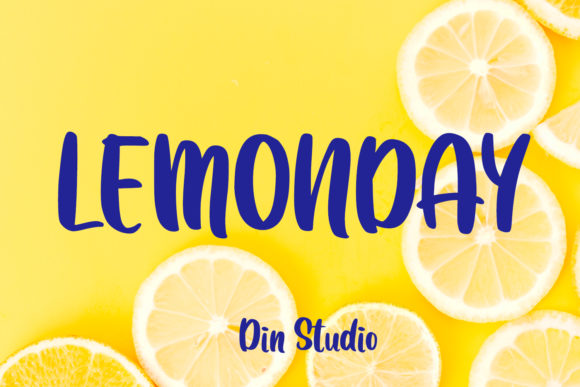
Lemonday Font
Behold Lemonday, a zesty and refreshing script font that will tantalize your designs with its captivating charm. This vibrant creation from Din Studio is a masterpiece of digital artistry, meticulously crafted to infuse your projects with an irresistible aura of joy and playfulness.
Step into a world where your words dance with delight, adorned in the whimsical strokes of Lemonday. Each letter is a vibrant brushstroke, bursting with personality and brimming with an infectious energy that will spark imagination and ignite creativity.
Lemonday is not merely a font; it's a gateway to a realm of endless possibilities. Its unique style is a testament to the power of imagination, inviting you to break free from the ordinary and embrace the extraordinary. Whether you're crafting whimsical invitations, designing vibrant social media posts, or adorning your website with a touch of whimsy, Lemonday will elevate your creations to new heights of visual delight.
With its playful and expressive nature, Lemonday is the perfect choice for adding a splash of sunshine to any project. Its cheerful spirit will instantly brighten your designs, evoking a sense of joy and optimism that will resonate with your audience.
Imagine your social media posts adorned with the delightful strokes of Lemonday, captivating your followers with their vibrant charm. Your website will transform into a vibrant tapestry of words, each letter a testament to your unique style and creative spirit. With Lemonday by your side, you'll have the power to turn every design into a masterpiece that sparks joy and leaves a lasting impression.
So, why settle for ordinary when you can unleash the extraordinary? Embrace the magic of Lemonday and let your creativity soar to new heights. With every stroke of this playful font, you'll add a touch of sunshine to the digital world, leaving an unforgettable mark on your audience.